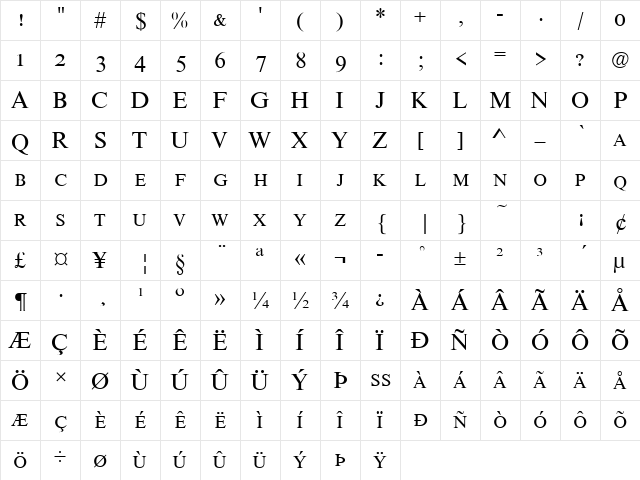
Nimbus Roman Becker No9SCT Regular
Design Context for Nimbus Roman Becker No9SCT Typeface
Nimbus Roman Becker No9SCT offers clean, dependable letterforms without strong stylistic allegiance, making it a practical choice for designers who need flexibility.